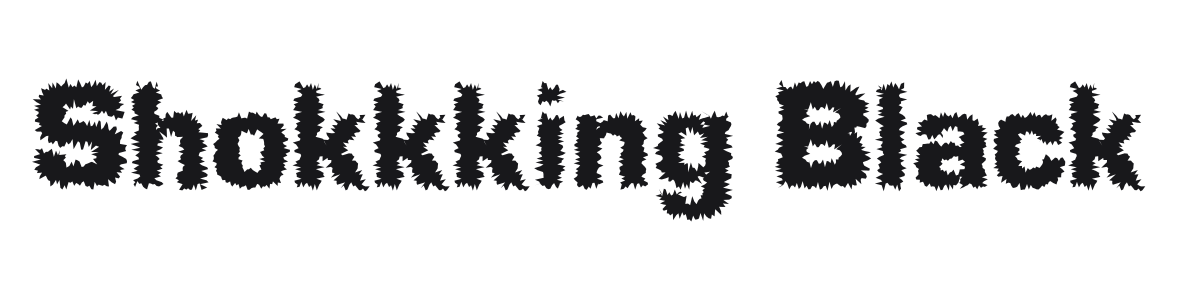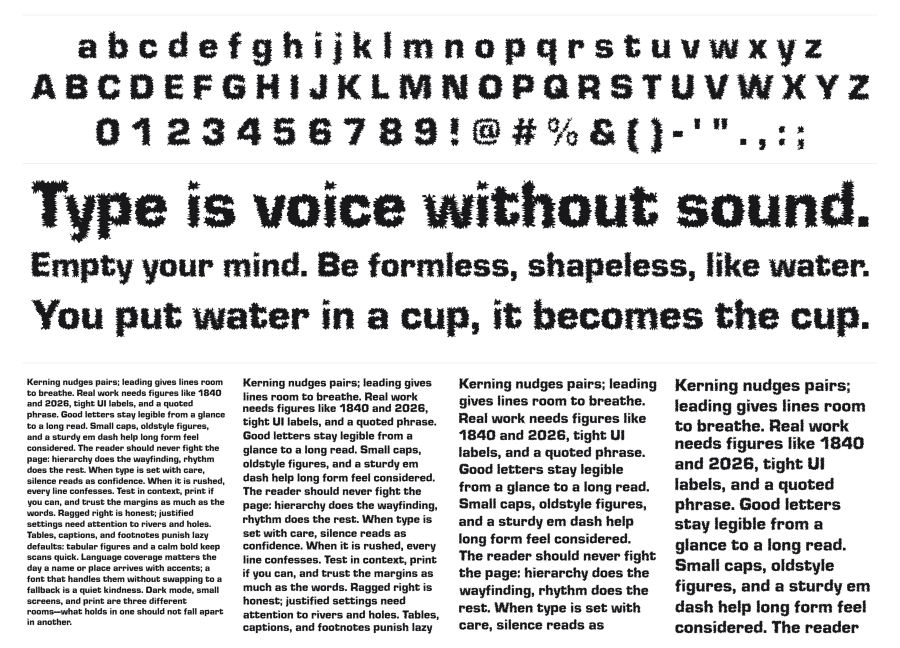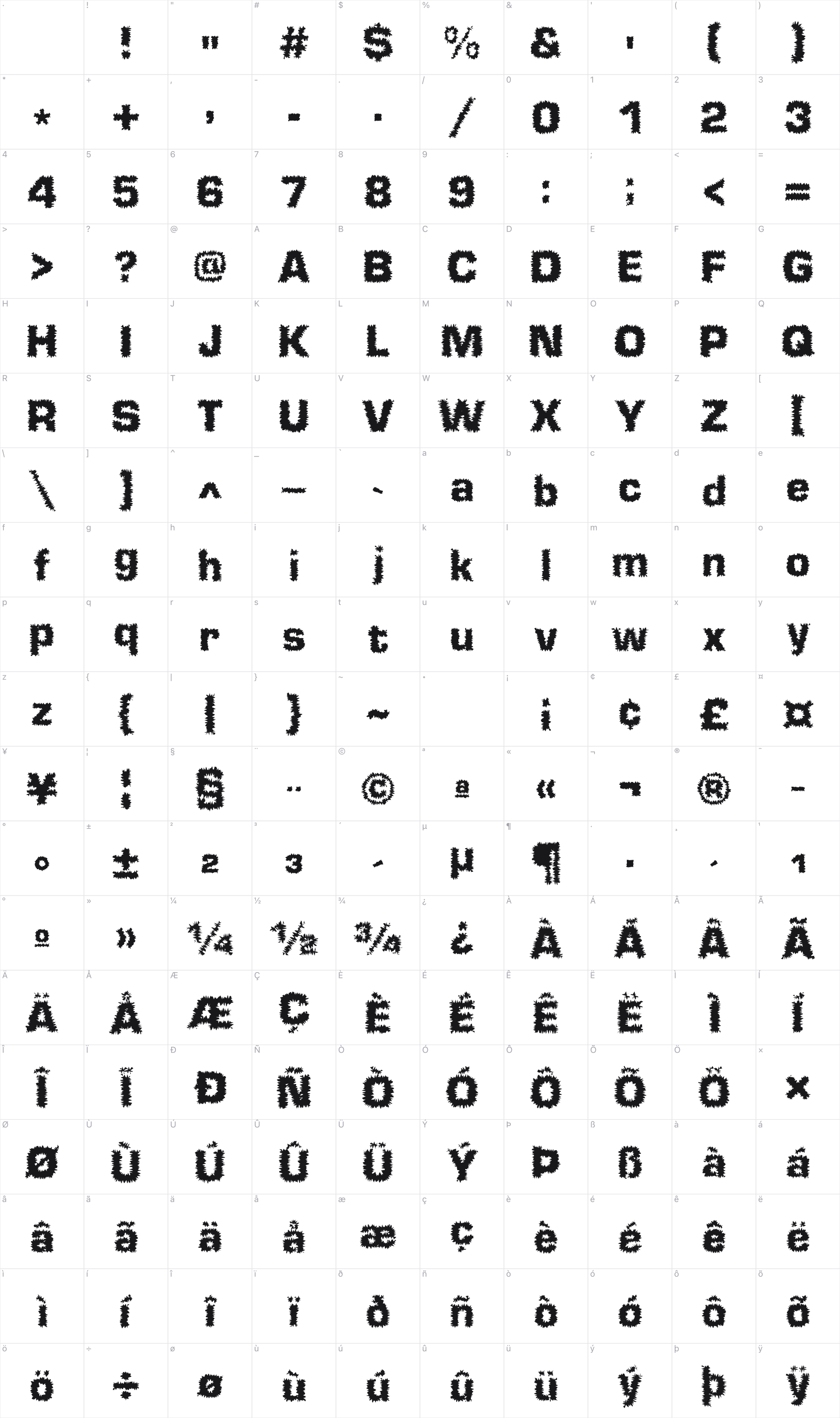
Shokkking Black
Shokkking Black is a heavy display font whose bold, blocky forms are consumed by dense, spiky erosion along every edge. The effect reads like letters scorched or shredded into existence, making it impossible to overlook at large sizes. It belongs in album art, horror posters, and anywhere that needs a visceral, confrontational edge.